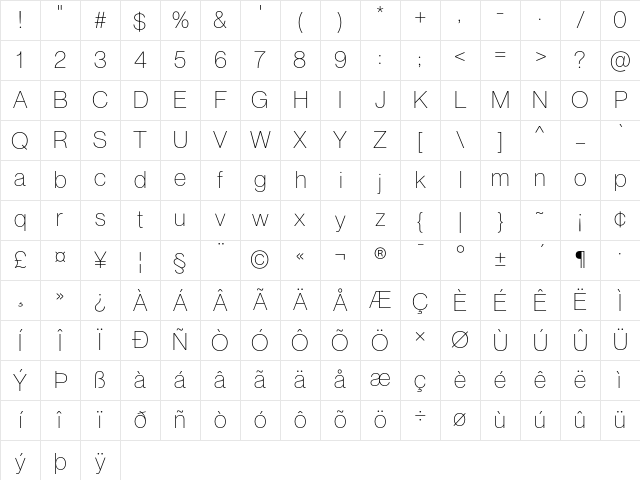
Complete Neue Montreal Thin Regular glyph index. Displaying only characters natively supported by Neue Montreal Thin Regular font.
Neue Montreal Thin is a composed and adaptable typeface that performs quietly and consistently across a wide range of design contexts. Its slender proportions lend an understated elegance to any composition.
Who designed the Neue Montreal Thin Regular font?